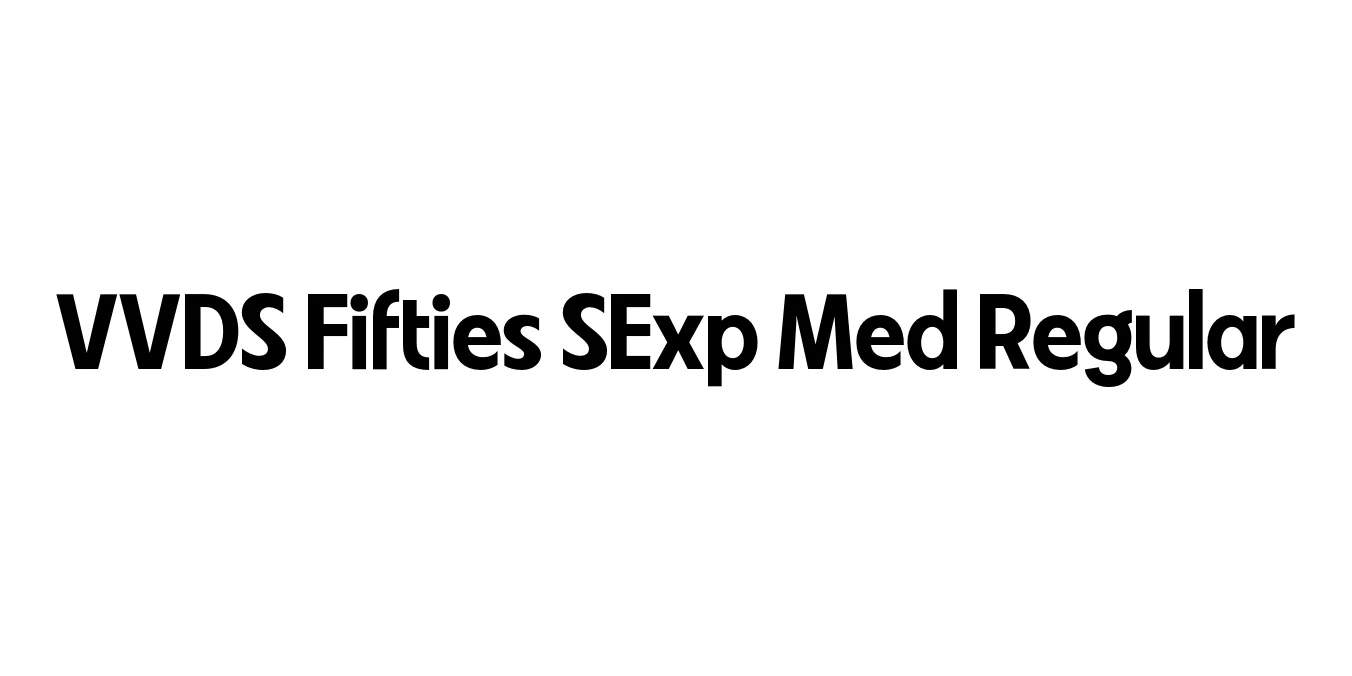
VVDS Fifties SExp Med Regular
Designed by Pavel Korzhenko
VVDS Fifties SExp Med Regular is part of a comprehensive font family meticulously crafted by Vintage Voyage Design Supply. Inspired by the golden era of 1950s advertising and mid-century modern aesthetics, this typeface captures the optimistic and clean geometric spirit of post-war graphic design. The Semi-Expanded Medium variant offers a unique proportions that balance readability with a distinct display presence, making it a versatile tool for designers looking to evoke a specific historical period without sacrificing modern functionality.
This typeface stands out for its refined geometric construction and subtle retro nuances. It was designed to bridge the gap between strict sans-serif utility and the charming irregularities often found in vintage signage. Whether used in high-end branding or editorial layouts, VVDS Fifties provides a sophisticated typographic voice that feels both nostalgic and contemporary, ensuring it remains a staple for projects requiring a touch of mid-century elegance.
VVDS Fifties SExp Med Regular Best Uses
Creating sophisticated retro-themed logos and visual identities.
Ideal for product labels that require a vintage aesthetic with modern clarity.
Perfect for headlines and pull-quotes in lifestyle magazines.
Effective for retail storefronts and cafe menu boards.